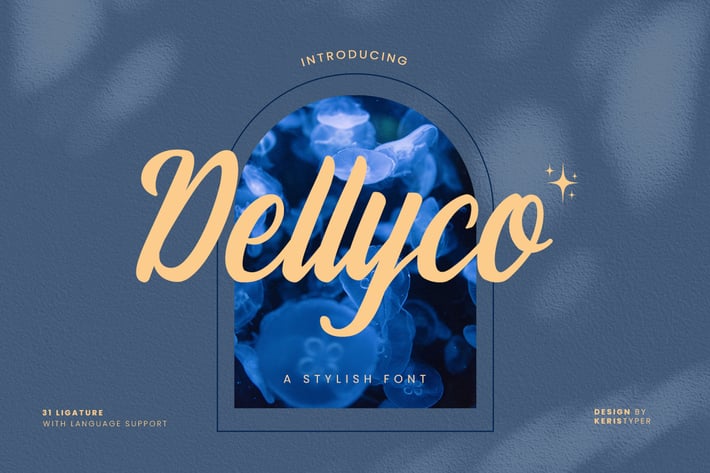
Dellyco Font
Dellico stylish font is a signature hand-painted typeface designed to help you create the look of stunning custom hand-lettering. The Uniqueness comes with upper and lowercase characters, punctuation, numerals, supports international languages and OpenType features with Stylistic Alternates, Contextual, and ligatures
Dellico Handwriting Font multilingual support:
Afrikaans, Albanian, Catalan, Danish, Dutch, English, Estonian, French, Finnish, German, Icelandic, Indonesian, Italian, Malay, Norwegian, Portuguese, Spanish, Swedish, Zulu, and many more.